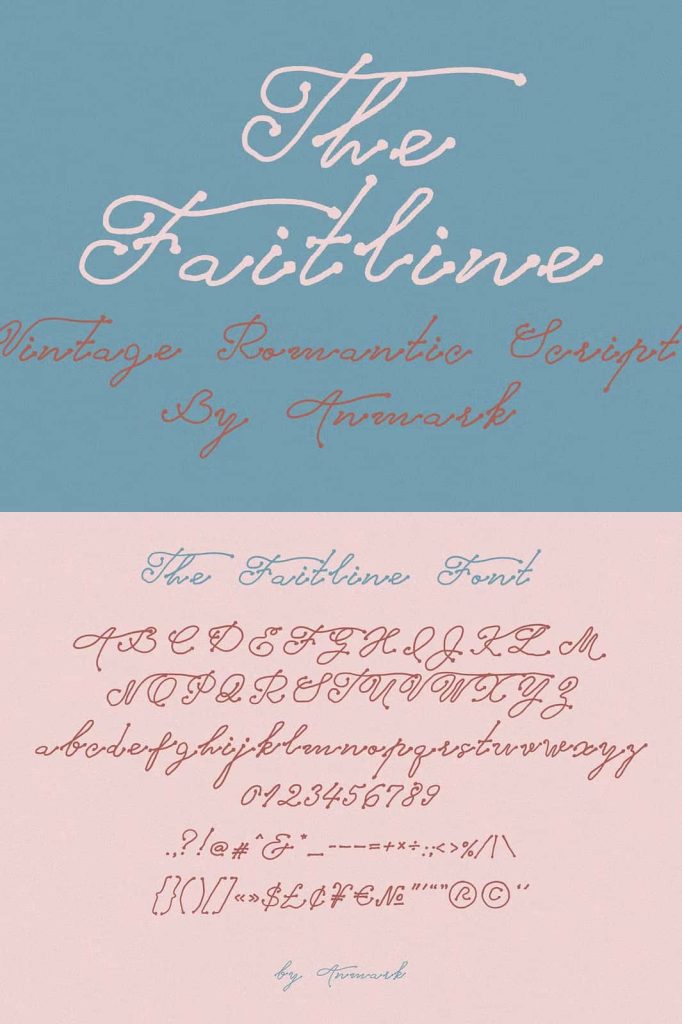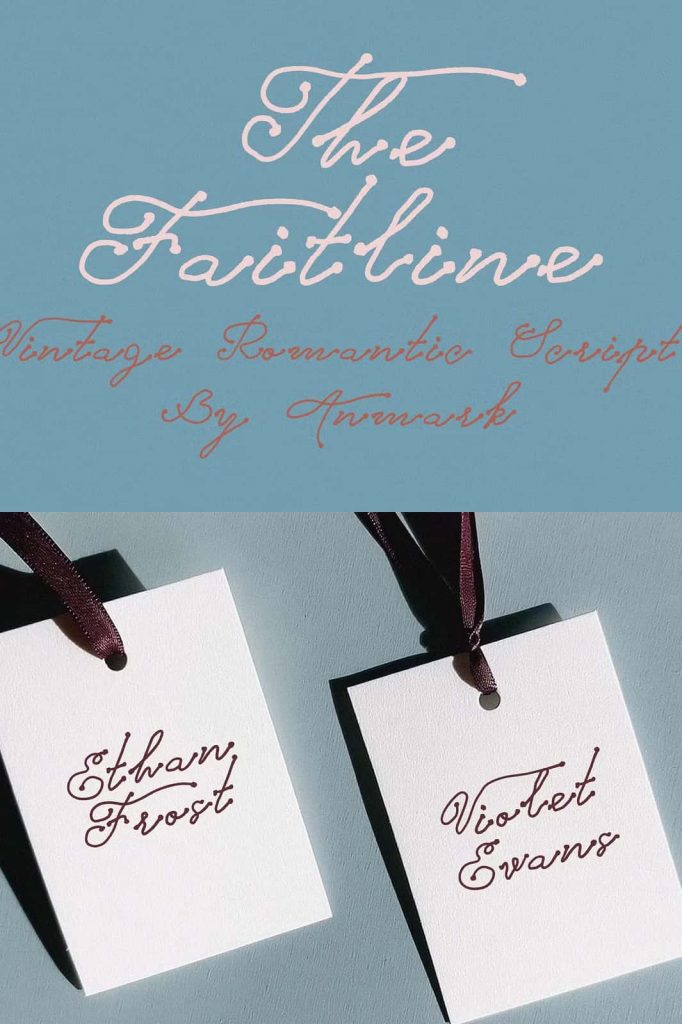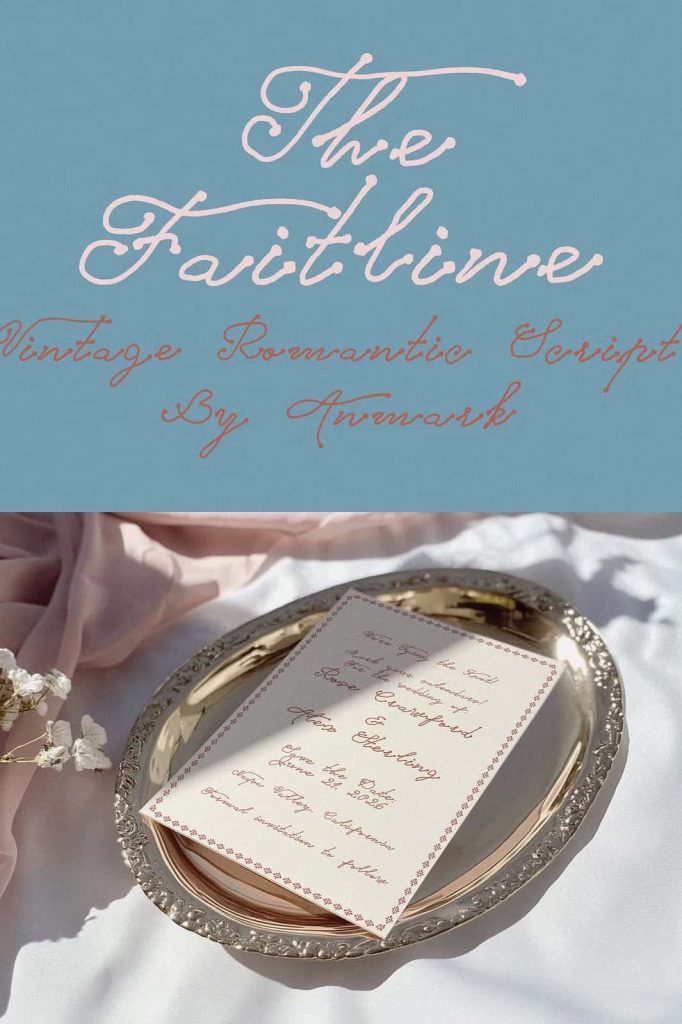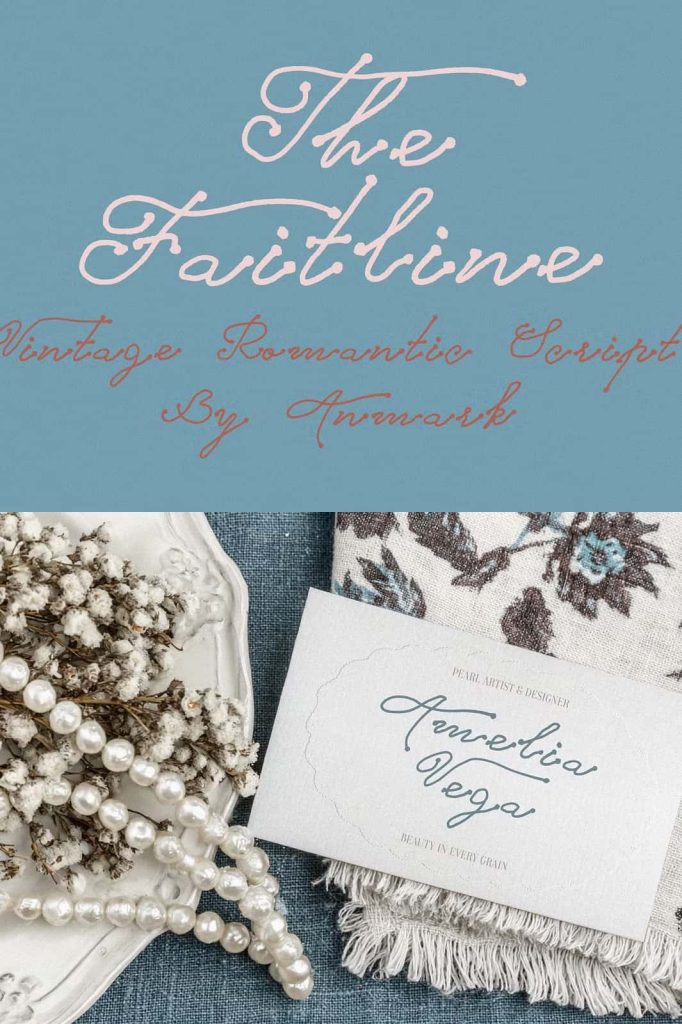
Faitline Romantic Script Font: Timeless Elegance with a Delicate Touch
The Faitline Romantic Script is a graceful and refined script font that brings elegance and emotion into every design. Inspired by vintage lettering and classic calligraphy, this typeface captures the beauty of romance through its flowing lines and delicate curves. It transforms simple text into expressive compositions that feel personal, warm, and visually captivating.
This font is designed for creators who want to evoke emotion and sophistication. Whether you are working on a wedding invitation or a luxury brand identity, Faitline provides the perfect balance between timeless charm and modern usability.
The Inspiration Behind Faitline Romantic Script
Faitline draws its inspiration from traditional calligraphy and vintage script styles that have long been associated with elegance and romance. It reflects the artistry of handwritten letters, where each stroke carries intention and beauty. By translating these qualities into a digital typeface, Faitline allows designers to achieve a handcrafted look with ease and precision.
The font also embraces a modern perspective. While it honors classic design traditions, it introduces smooth refinements that make it suitable for contemporary projects. This combination ensures that Faitline feels both nostalgic and fresh.
Key Features of Faitline Romantic Script
Flowing and Elegant Letterforms
The defining feature of Faitline is its smooth, flowing strokes. Each letter connects seamlessly, creating a natural rhythm that enhances readability and visual appeal. These elegant lines give the font its signature romantic character.
Delicate Vintage Aesthetic
The font carries a soft vintage influence that adds depth and authenticity. Its subtle details reflect the charm of classic script styles while maintaining a clean and polished appearance.
Versatile and Modern Design
Faitline adapts easily to various design contexts. Its balanced structure allows it to function beautifully in both traditional and modern layouts, making it a reliable choice for diverse creative projects.
Expressive and Emotional Tone
The typeface communicates warmth and intimacy. Its design encourages emotional connection, making it especially effective for projects that focus on love, celebration, and personal expression.
Best Use Cases for Faitline Romantic Script
Faitline excels in projects that require elegance and a romantic atmosphere. Its refined style makes it ideal for:
- Wedding invitations and event stationery
- Greeting cards and personal messages
- Logo design for beauty, fashion, and lifestyle brands
- Packaging for luxury or handcrafted products
Designers often use Faitline for headlines, signatures, and decorative text elements. Pairing it with a clean sans serif font can create a balanced composition that enhances readability while highlighting its expressive qualities.
Why Choose Faitline Romantic Script?
Faitline stands out because it combines elegance with practicality. It allows designers to create visually rich and emotionally engaging designs without the need for complex hand lettering. The font’s smooth curves and refined details help establish a strong visual identity that feels both sophisticated and approachable.
In branding and design, this ability to communicate emotion is invaluable. Faitline helps transform ordinary text into meaningful visual experiences that resonate with audiences.
The Faitline Romantic Script is more than just a decorative font—it is a celebration of timeless romance and artistic expression. By blending vintage inspiration with modern refinement, it delivers a typeface that feels elegant, versatile, and deeply expressive. For designers who want to create projects with beauty, warmth, and emotional depth, Faitline offers a truly captivating solution.